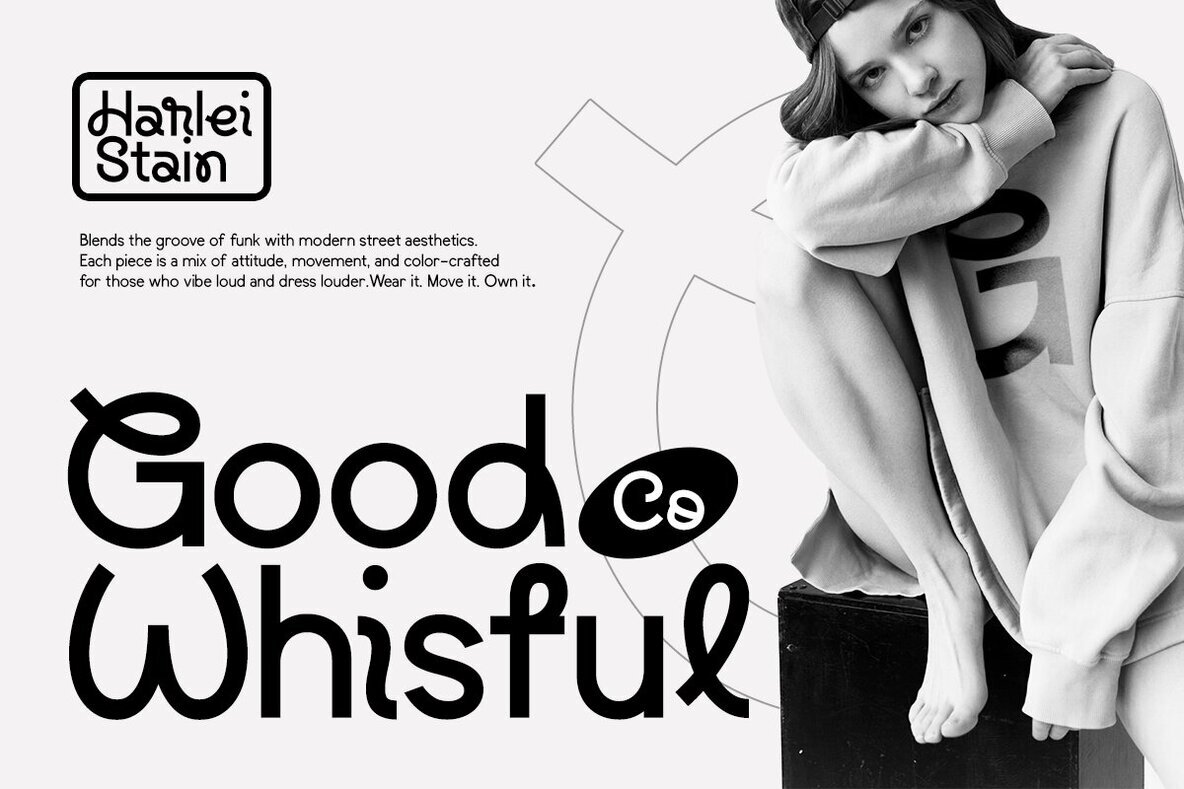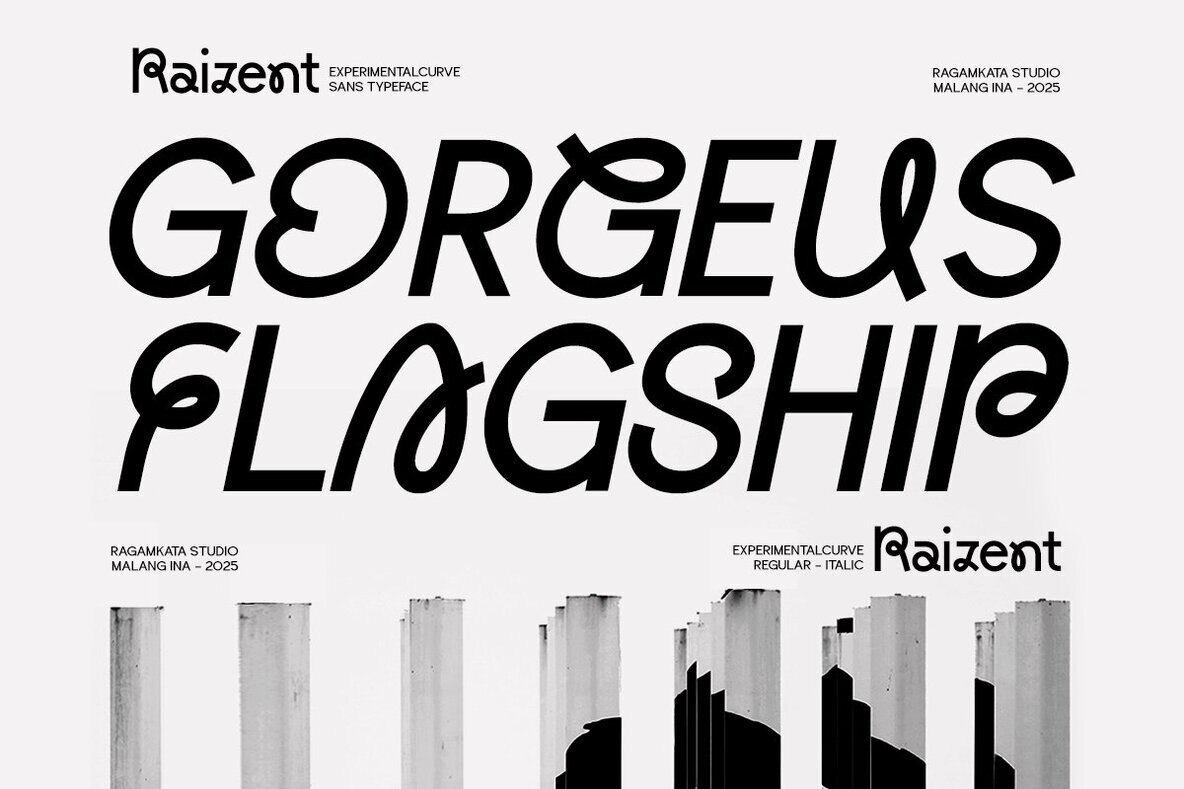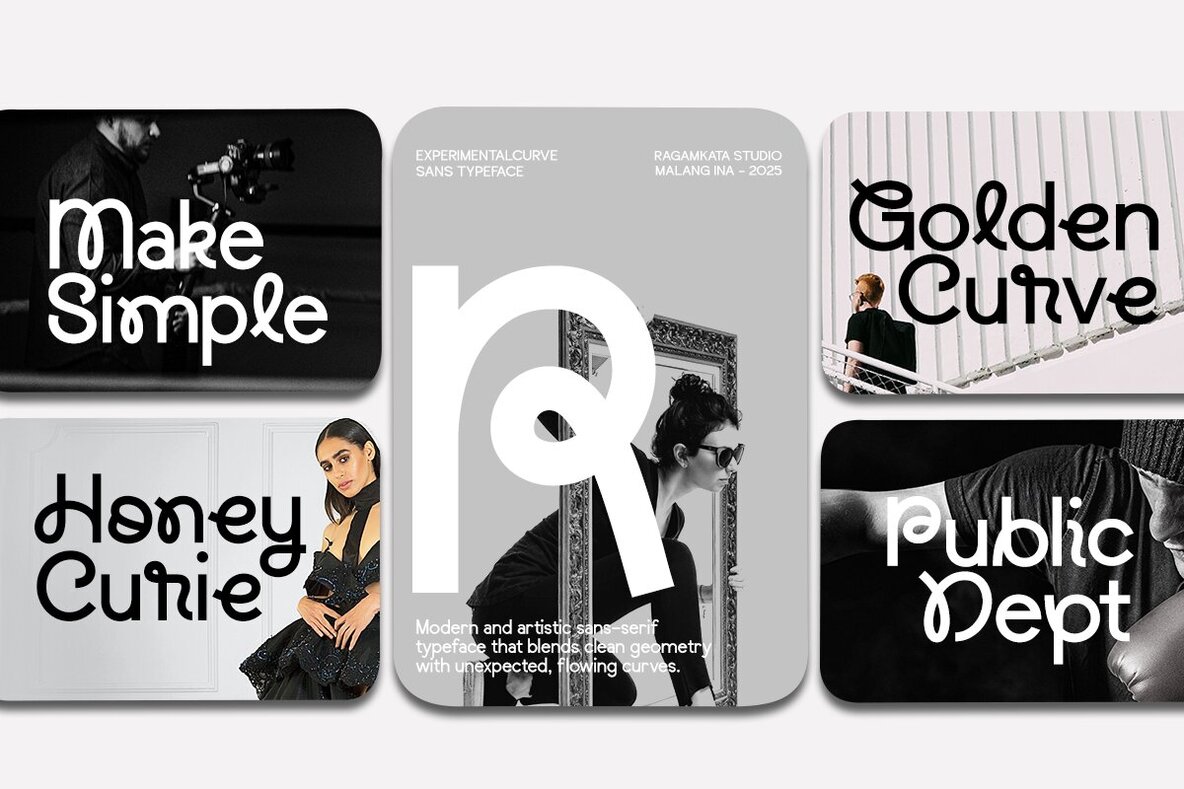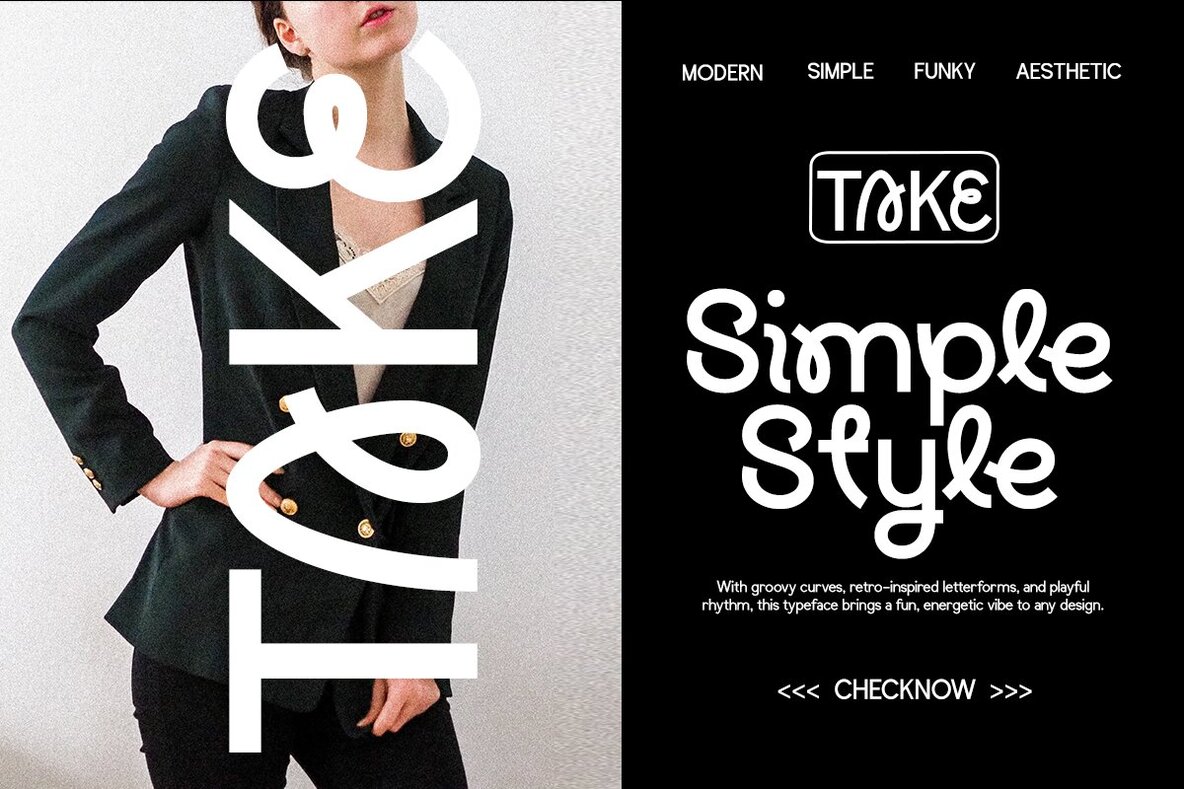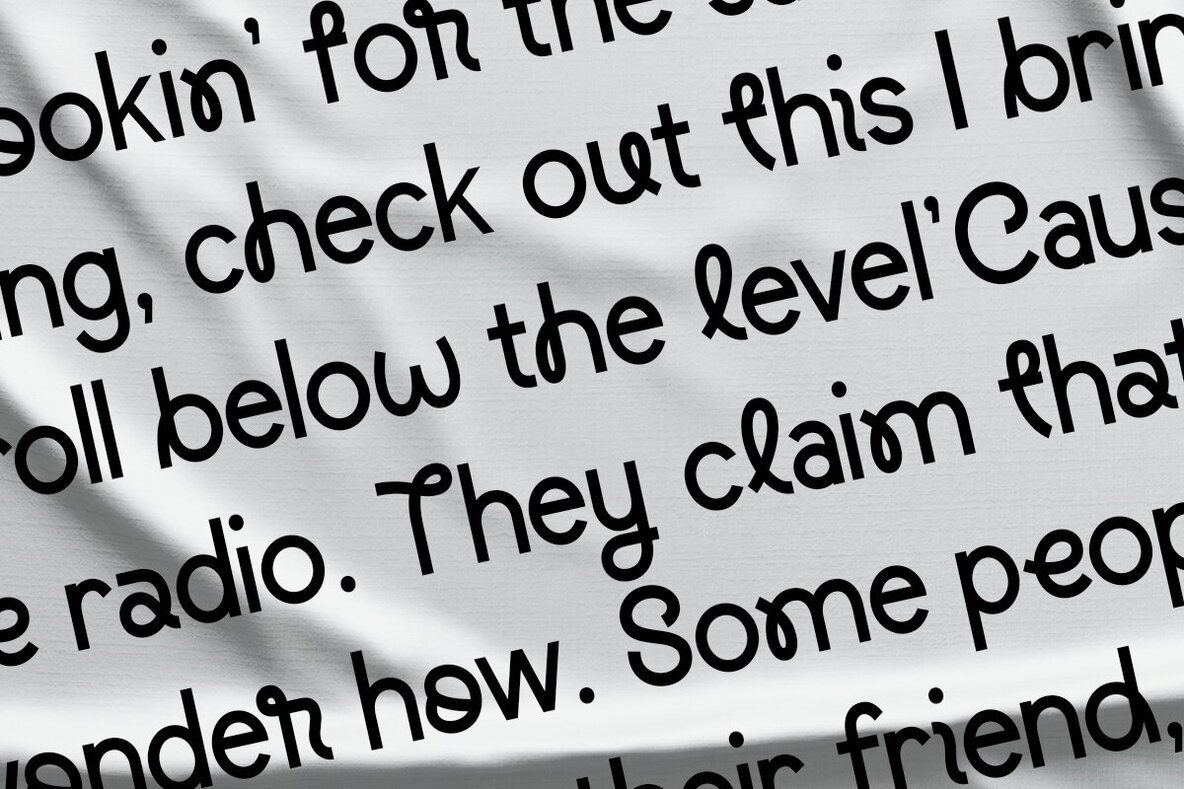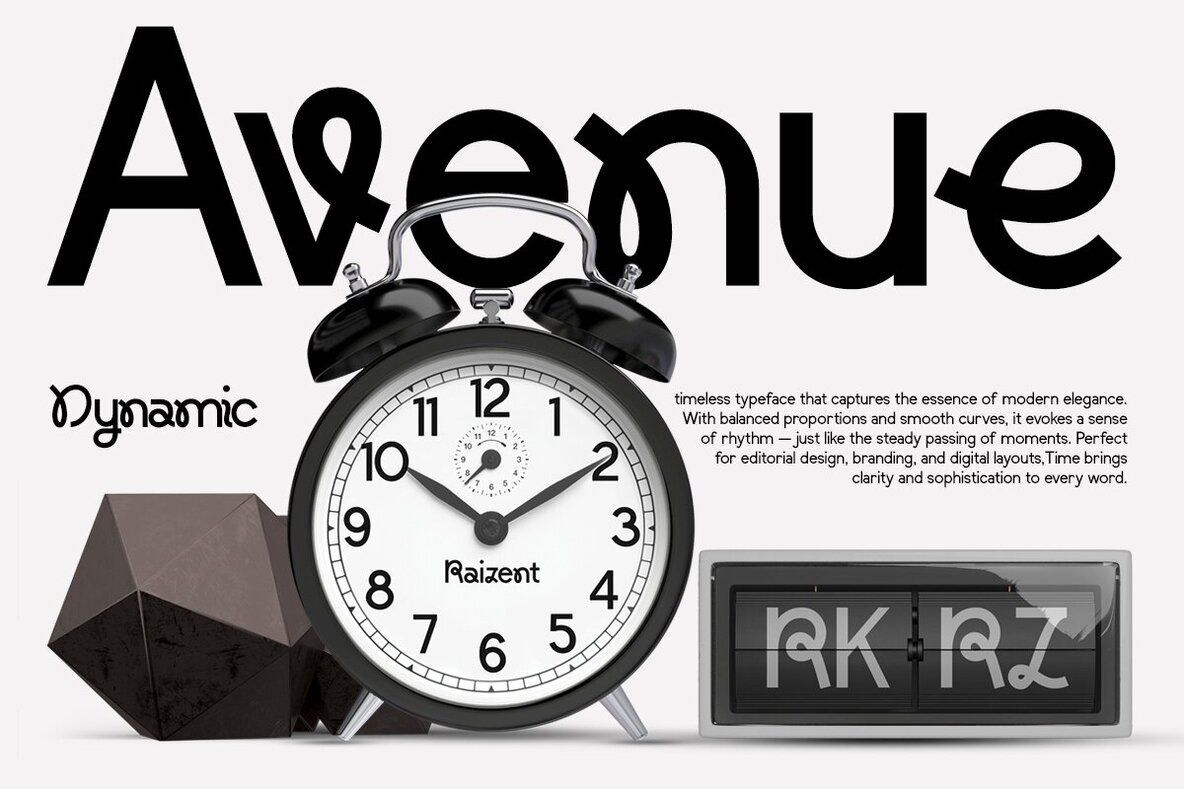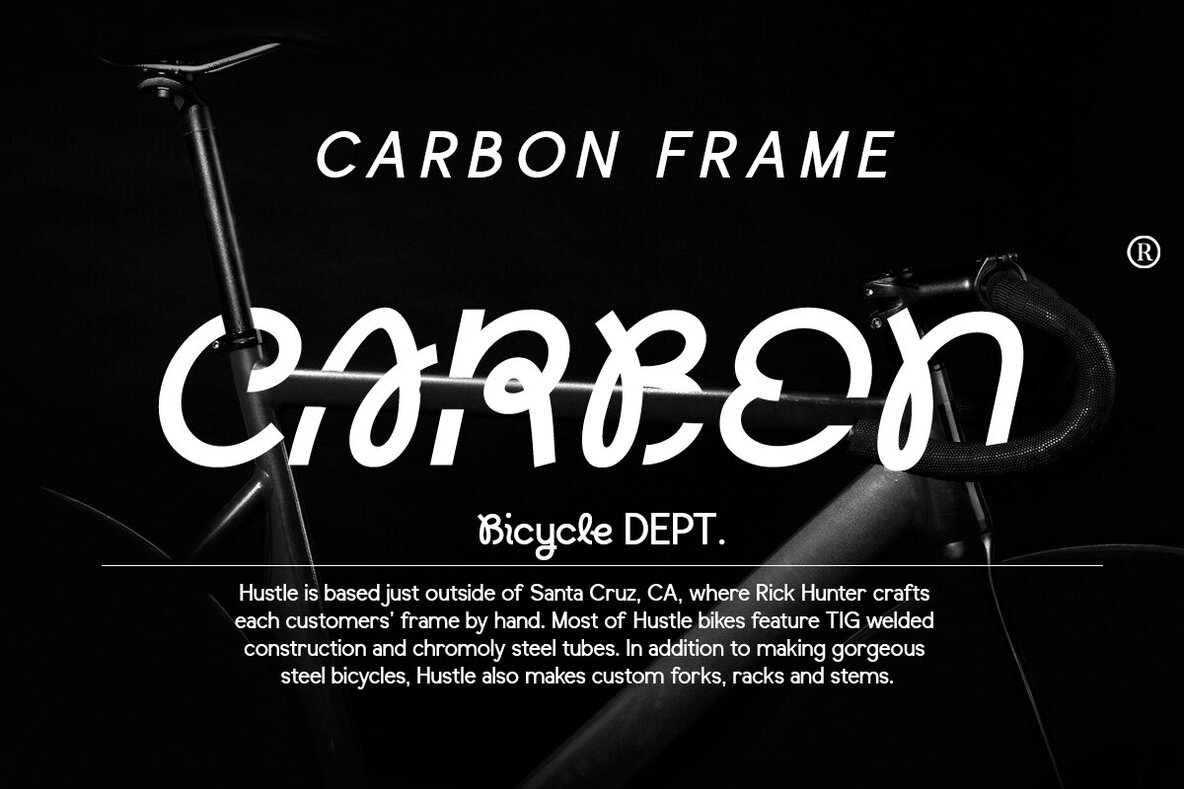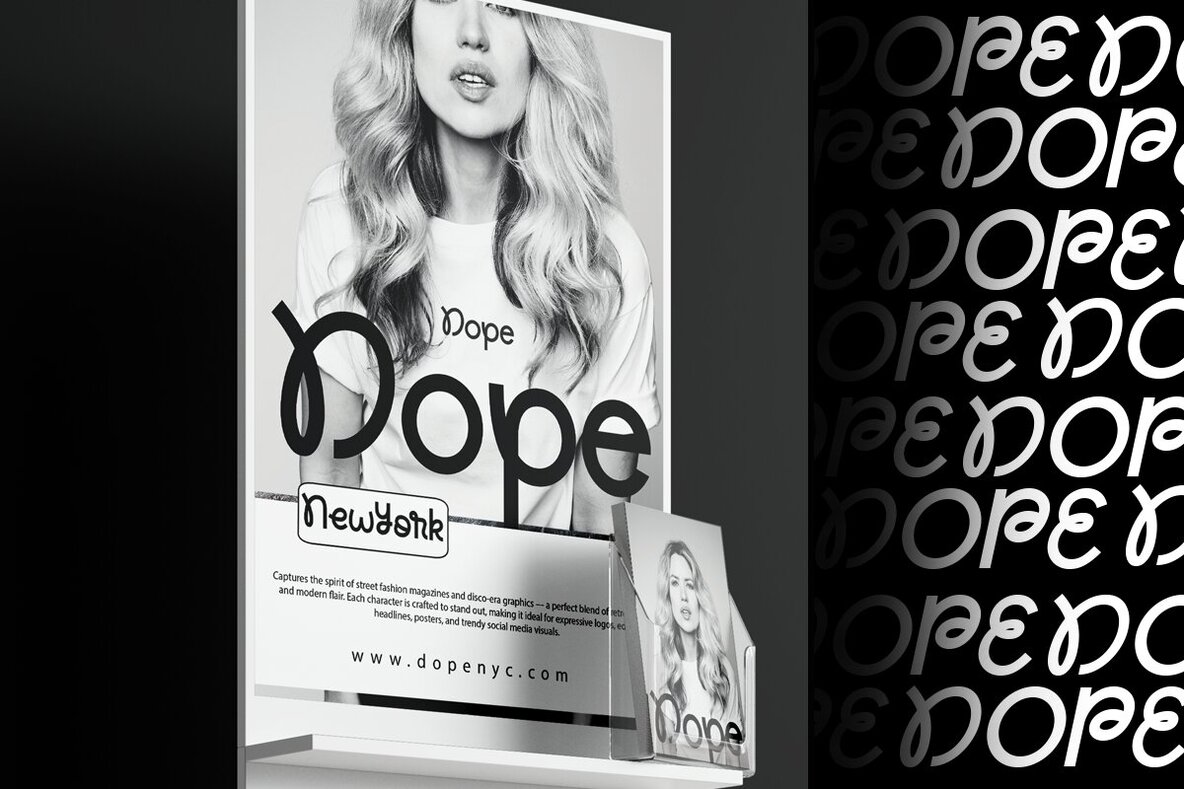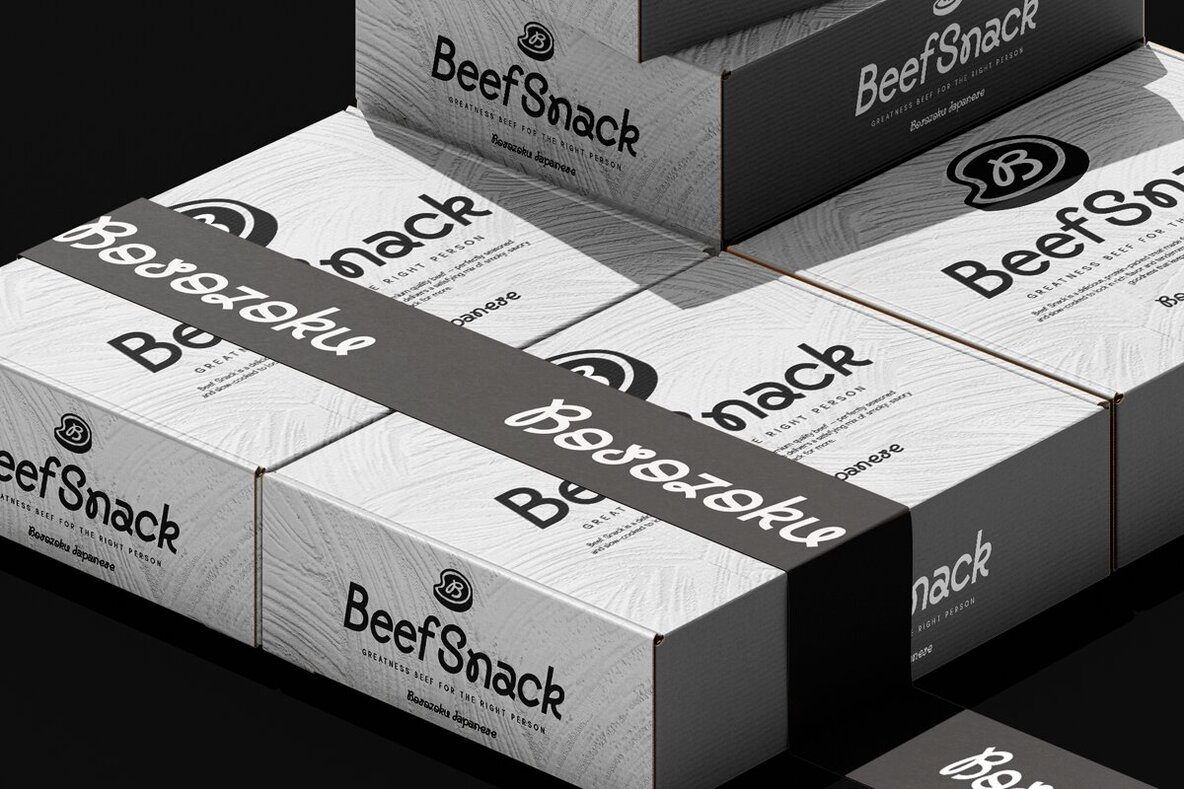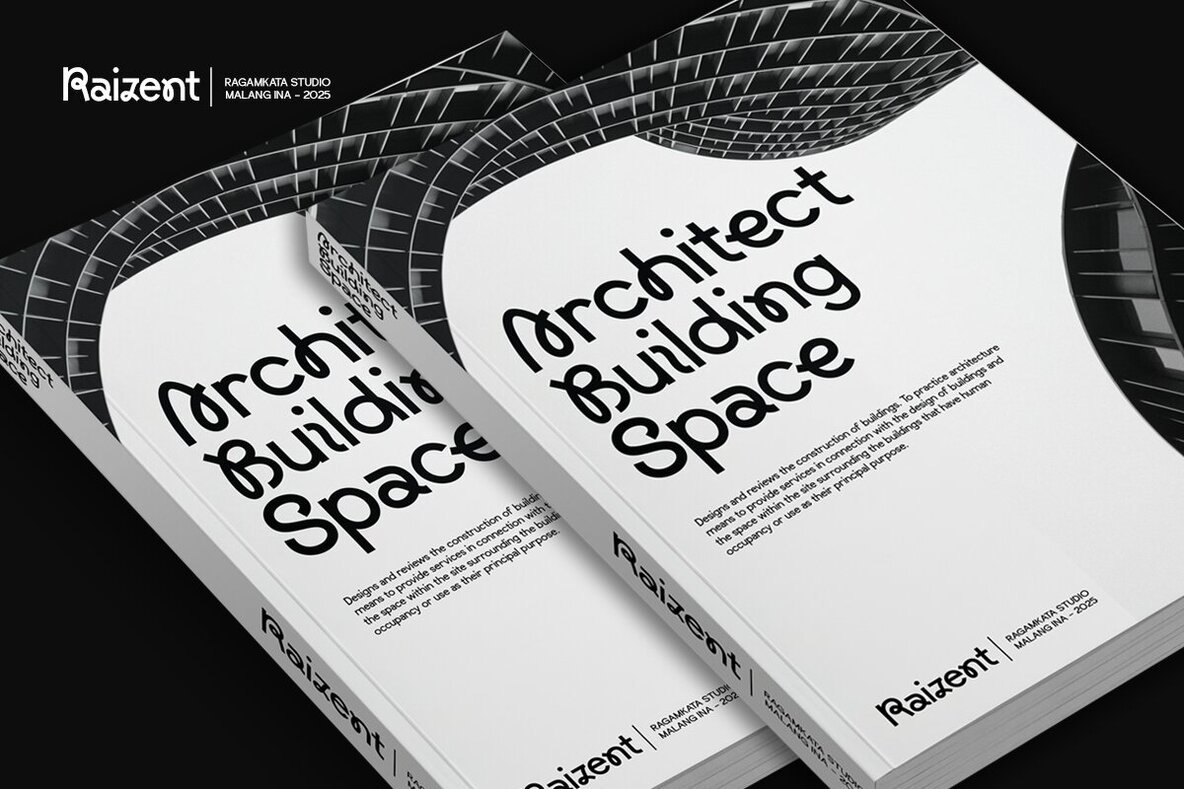
Raizent Font
Raizent stands out as an experimental sans serif typeface that seamlessly fuses geometric structure with lively curves. Ideal for modern branding, creative posters, and digital typography, it offers a distinctive character in both regular and italic styles that resonates with the innovative spirit of today’s designs.Raizent: A Bold Blend of Geometry and Playful Curves